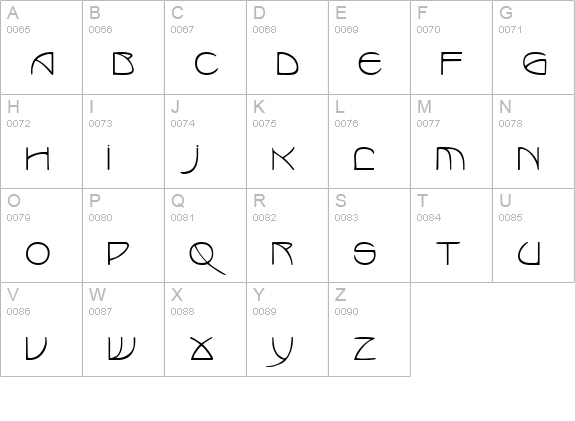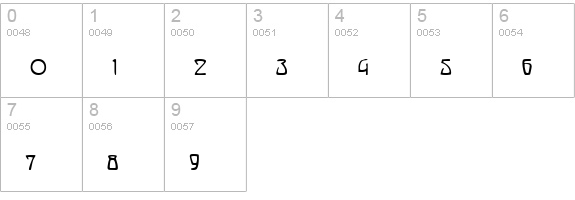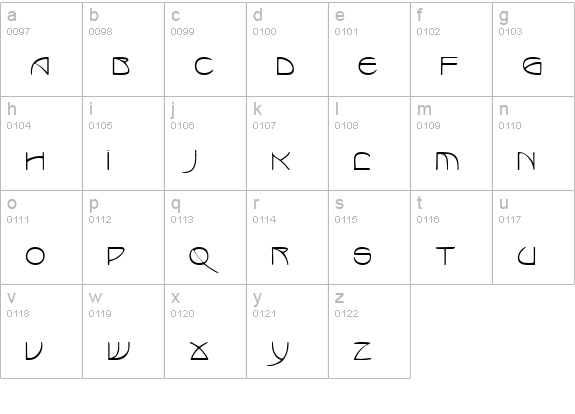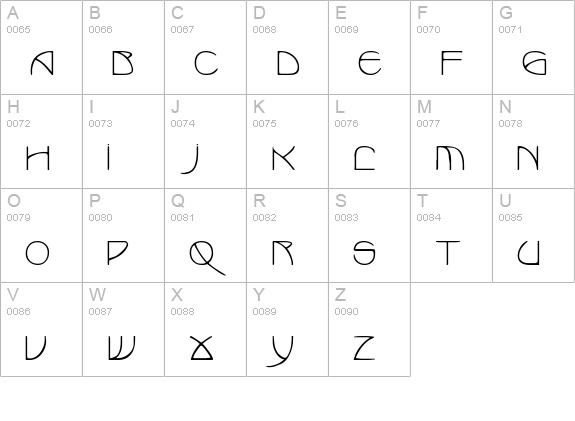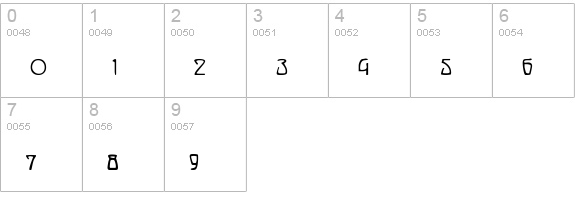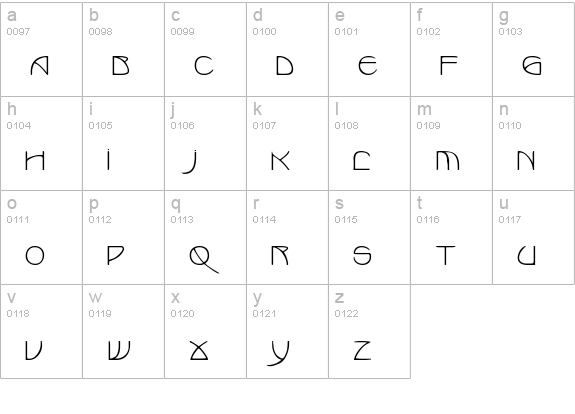
Marlowe Font Details
Marlowe font is a stunning display typeface that exudes elegance and sophistication. With its refined letterforms and graceful curves, this font is perfect for adding a touch of class to any design project. The Marlowe font is characterized by its clean lines and balanced proportions, making it highly legible and versatile. Whether used for headlines, logos, or body text, it effortlessly captures attention and delivers a professional look. One of the most appealing aspects of Marlowe font is that it is freely available to download at FontsMarket.com. This means that designers, artists, and enthusiasts alike can access this remarkable font without any cost. The availability of Marlowe font for free ensures that creativity knows no bounds, allowing everyone to utilize its timeless beauty for their personal or commercial projects. With its extensive character set, Marlowe font supports multiple languages and typographic needs. It offers a wide range of uppercase and lowercase letters, numbers, punctuation marks, and special characters, enabling users to craft captivating compositions with ease. Whether you are designing a logo for a luxury brand, creating elegant invitations, or enhancing the visual appeal of your website, Marlowe font will be your go-to choice. Its distinct personality and refined aesthetics will undoubtedly make a lasting impression on your audience. Embrace the beauty of Marlowe font - download it freely today at FontsMarket.com and elevate your designs to new heights.